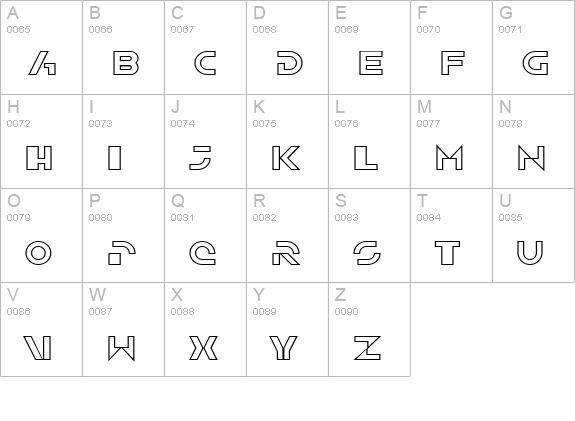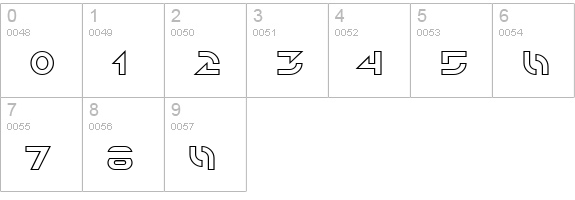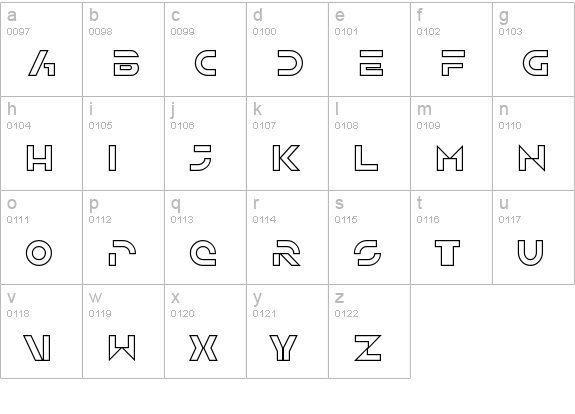
SF Solar Sailer Outline Font Details
Introducing SF Solar Sailer Outline font, a stunning typeface that combines futuristic elegance with a touch of sophistication. This font is the perfect choice for those seeking a sleek and modern look, whether it's for a website, logo, or branding project. Featuring clean lines and sharp edges, SF Solar Sailer Outline font exudes a sense of technological advancement and forward-thinking design. Its unique outline style creates a captivating visual impact that is sure to grab attention and leave a lasting impression. With its versatility, SF Solar Sailer Outline font is suitable for a wide range of applications. From digital designs to print materials, this font adds a touch of professionalism and sophistication to any project. Whether you're working on a tech startup, a fashion brand, or an innovative product, this font will elevate your visuals and make them stand out from the crowd. One of the best things about SF Solar Sailer Outline font is that it is freely available to download at FontsMarket.com. This means that you can start using this incredible font right away, without any hassle or cost. FontsMarket.com is a trusted source for high-quality fonts, and SF Solar Sailer Outline font is just one of the many amazing options you can find on their website. So why wait? Embrace the future of design with SF Solar Sailer Outline font and take your projects to the next level. Whether you're a professional designer or a passionate hobbyist, this font is sure to inspire and impress. Download SF Solar Sailer Outline font today and unlock the unlimited creative possibilities that await you.